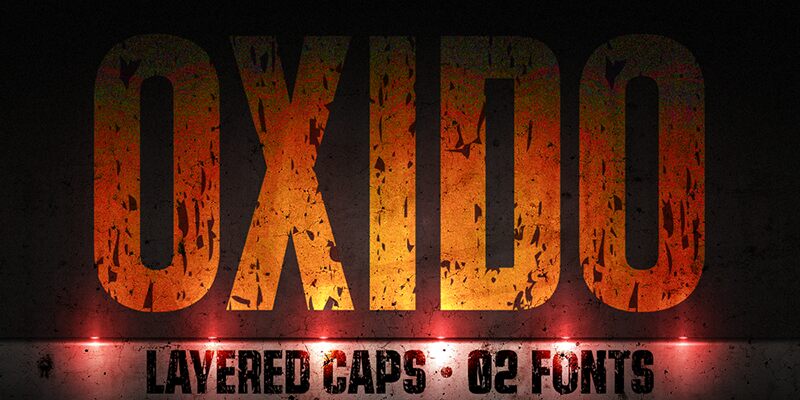
Oxido font
Oxido
Oxido Eroded was conceived from a powerful idea: to embody the relentless imprint of time. The roughness of rust, the toughness of industry, and the beauty of imperfection converge in a typeface that maintains both legibility and typographic sophistication.
This font is not merely eroded or "destroyed"; it serves as a visual testament to resilience and authenticity. Each glyph in Oxido represents a metaphor for the passage of time, merging technical precision with expressive strength.